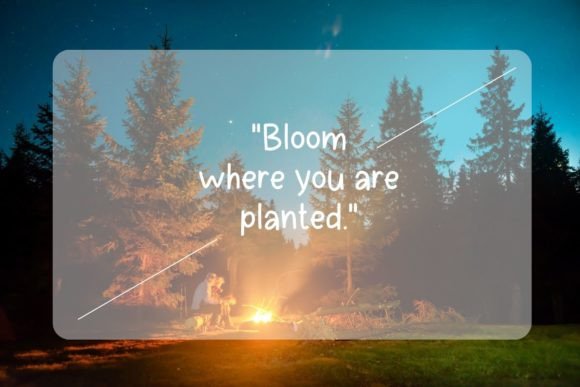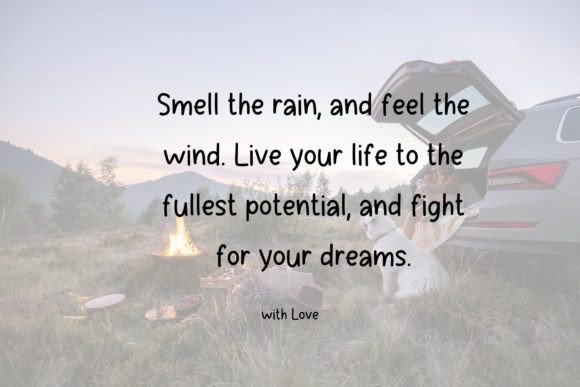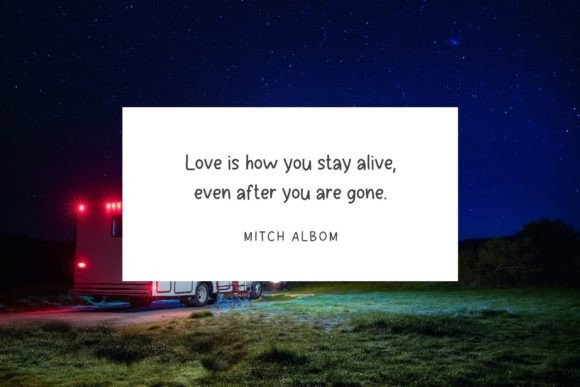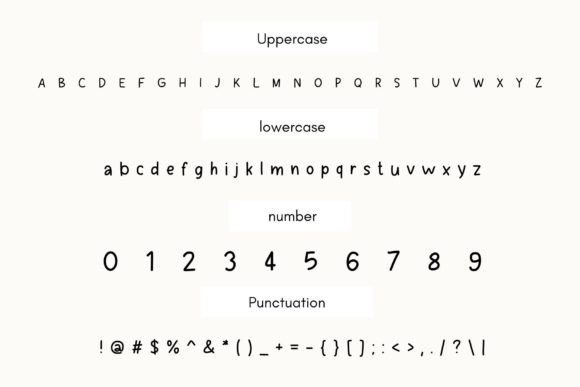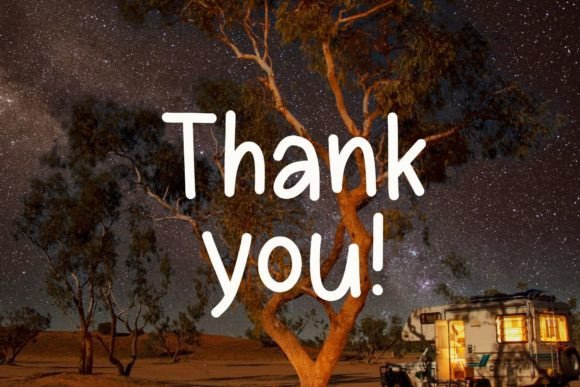
Introducing Goldie Font: The Ultimate Handwritten Font for Creative Projects
Are you looking for a font that adds a touch of playfulness and authenticity to your designs? Look no further than Goldie Font, a cute handwritten font that’s perfect for a wide range of creative projects. From blog posts and logos to branding, ads, invitations, and more, Goldie Font is the ideal choice for designers and crafters who want to add a personal touch to their work.
What is Goldie Font?
Goldie Font is a carefully crafted handwritten font that embodies the spirit of playfulness and authenticity. Its unique and charming design makes it perfect for projects that require a personal and creative touch. Whether you’re a designer, crafter, or DIY enthusiast, Goldie Font is a versatile and easy-to-use font that can be added to any design.
Features of Goldie Font
- Playful and Authentic Design: Goldie Font features a unique and charming handwritten design that’s perfect for adding a personal touch to your projects.
- Versatile and Easy to Use: Goldie Font can be used for a wide range of creative projects, from blog posts and logos to branding, ads, invitations, and more.
- Perfect for Designers and Crafters: Goldie Font is ideal for designers and crafters who want to add a touch of personality and whimsy to their work.
Uses of Goldie Font
Goldie Font is perfect for a wide range of creative projects, including:
- Blog Posts: Add a personal touch to your blog posts with Goldie Font, perfect for headings, titles, and quotes.
- Logos and Branding: Use Goldie Font to create unique and memorable logos and branding materials that stand out from the crowd.
- Ads and Marketing Materials: Add a touch of playfulness and authenticity to your ads and marketing materials with Goldie Font.
- Invitations and Greeting Cards: Use Goldie Font to create beautiful and personalized invitations and greeting cards for special occasions.
- Planners and Photo Albums: Add a personal touch to your planners and photo albums with Goldie Font, perfect for titles, headings, and journaling.
- Decorations and Crafts: Use Goldie Font to add a touch of personality and whimsy to your decorations and crafts, from scrapbooking to DIY projects.
Why Choose Goldie Font?
There are many reasons why Goldie Font is the perfect choice for your creative projects. Here are just a few:
- Unique and Charming Design: Goldie Font features a unique and charming handwritten design that’s sure to stand out from the crowd.
- Versatile: Goldie Font can be used for a wide range of creative projects, from digital designs to print materials.
If you’re looking for a font that adds a touch of playfulness and authenticity to your designs, look no further than Goldie Font. With its unique and charming handwritten design, versatility, and ease of use, Goldie Font is the perfect choice for designers and crafters who want to add a personal touch to their work. So why wait? Add Goldie Font to your designs today and enjoy the results!